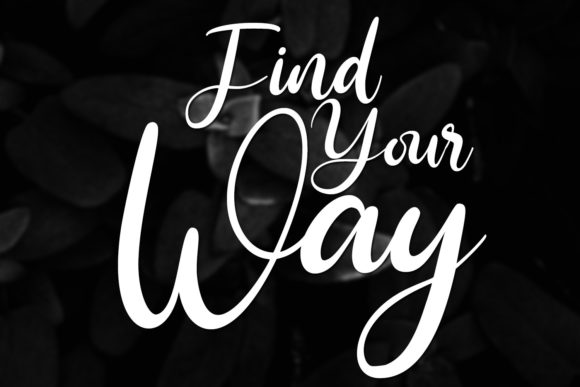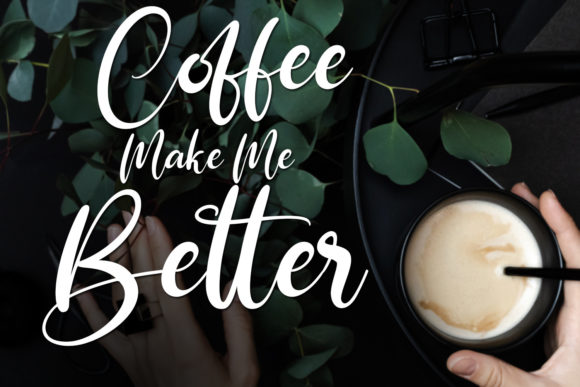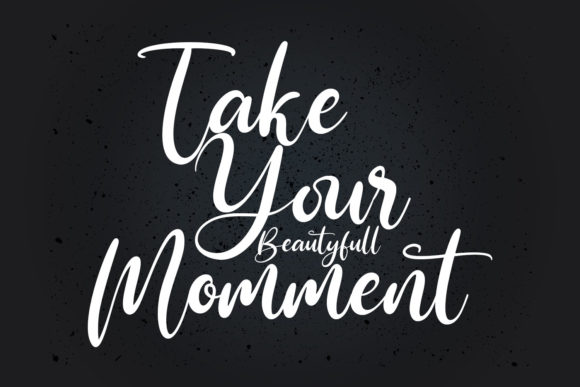
Introduction to Chime Bells Font
Chime Bells is a beautiful script font.
It features high contrast strokes, fun characters, ligatures and alternates Add this romantic looking font to each of your love letters, wedding invitations or favorite design ideas, and you will be astounded by the outcome.
Key Features of Chime Bells Font
Why Choose Chime Bells Font?
Chime Bells Font offers exceptional quality and versatility, making it a valuable addition to your design toolkit. Whether you’re creating for personal projects or commercial use, Chime Bells Font delivers professional results.